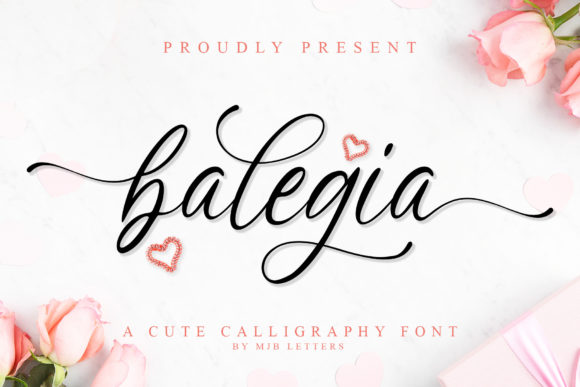
Introducing Balegia, the enchanting script font that will transform your designs into works of art. Its delicate strokes and captivating curves evoke a sense of elegance and sophistication, making it the perfect choice for creating beautiful wedding invitations, business logos, menus, and more.
With Balegia, you'll have the power to effortlessly add a touch of magic to your creative projects. Its modern vibe and versatility allow it to seamlessly blend with a wide variety of design styles, from classic to contemporary. Let Balegia elevate your designs to new heights, captivating your audience with its charm and grace.
Balegia's PUA encoding makes it incredibly user-friendly. Accessing all of the glyphs and swashes is a breeze, ensuring that you have the creative freedom to bring your unique vision to life. Unleash your imagination and explore endless possibilities with Balegia.
Step into the world of Balegia and let your creativity flourish. With its stunning aesthetics and versatility, Balegia is sure to become your go-to font for creating unforgettable designs that resonate with your audience. Embrace the beauty of typography with Balegia and let your creative genius shine through.